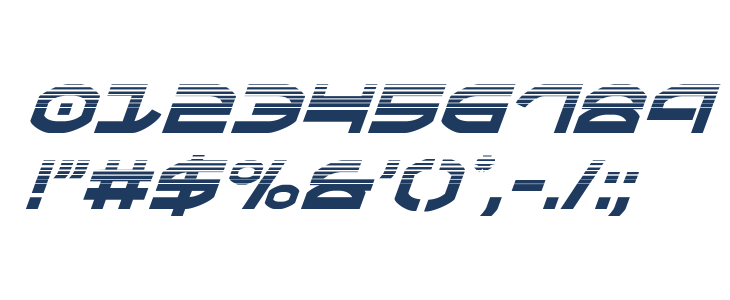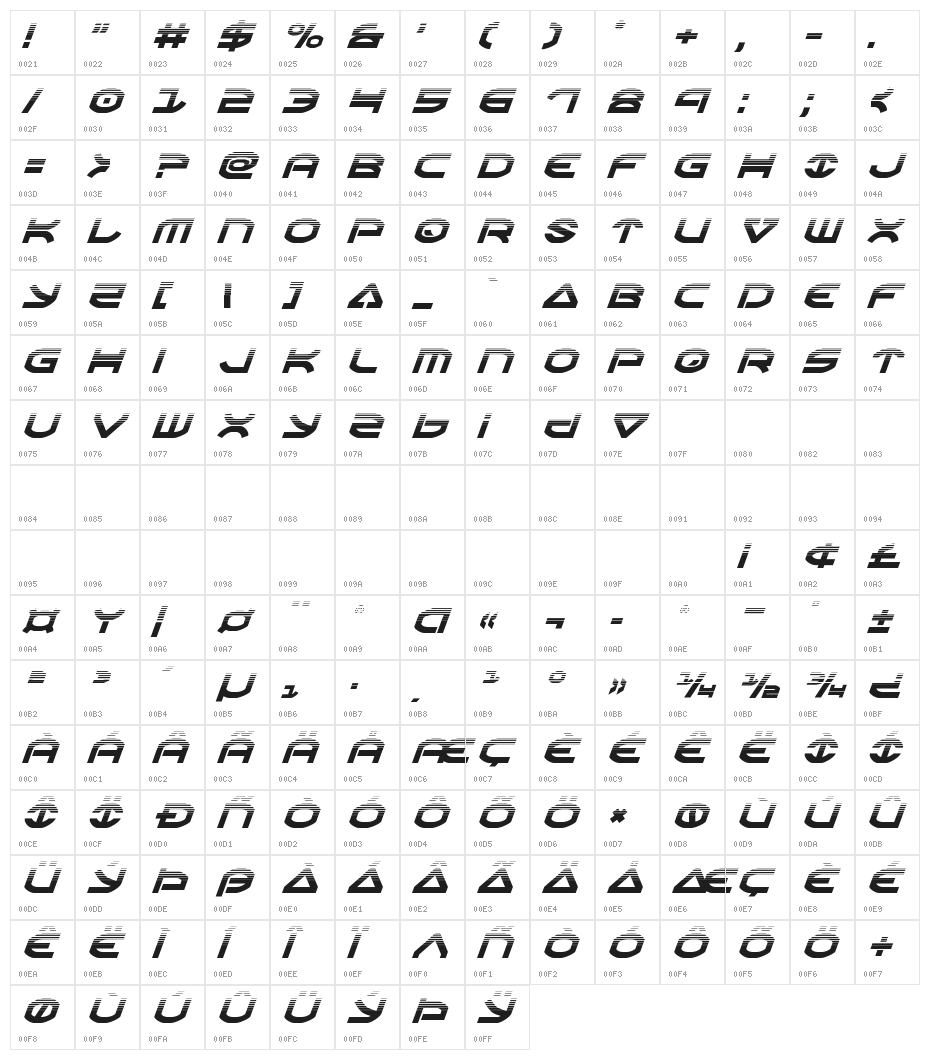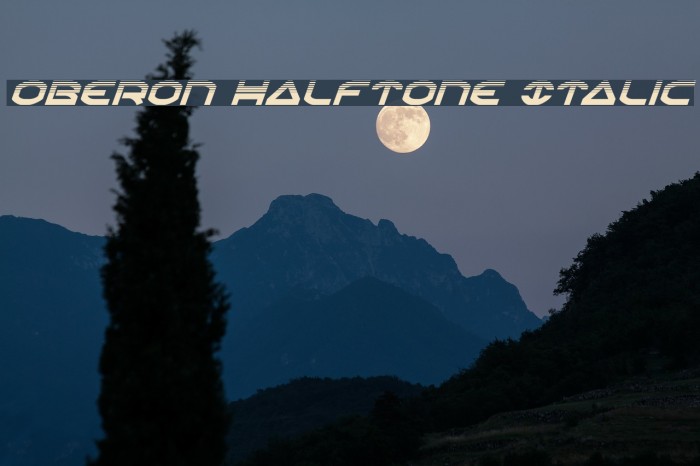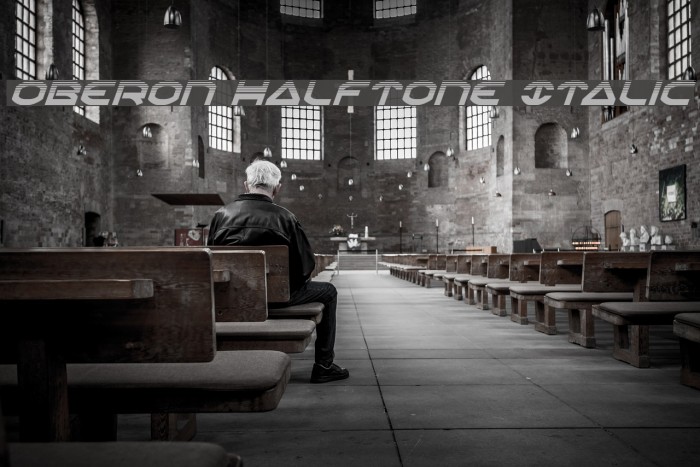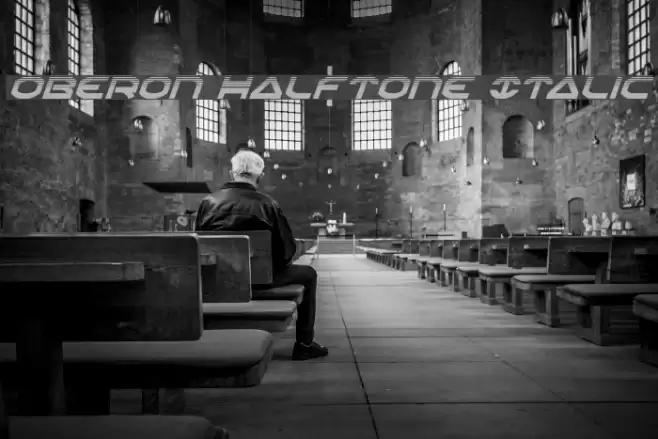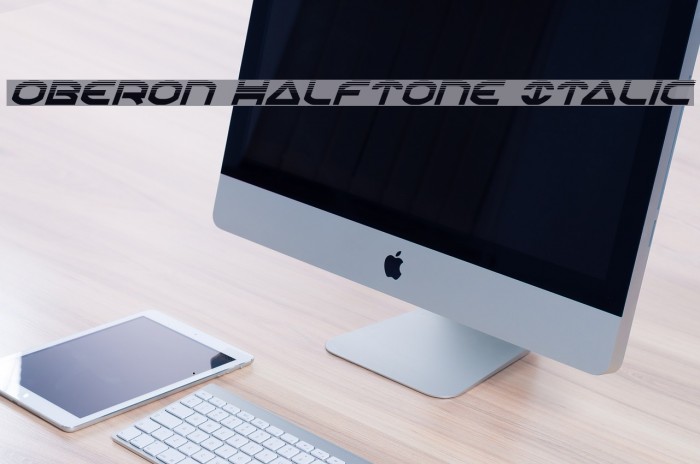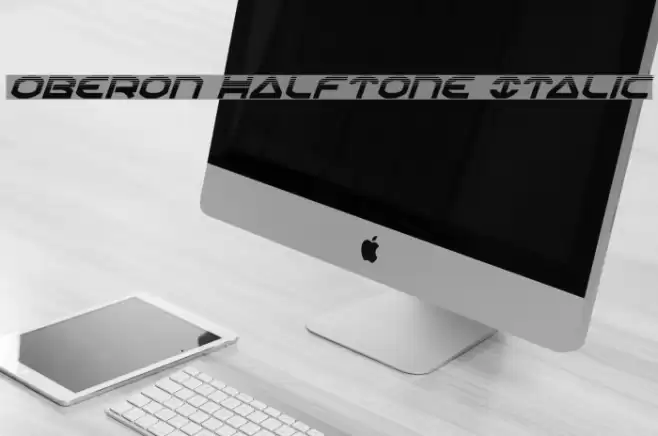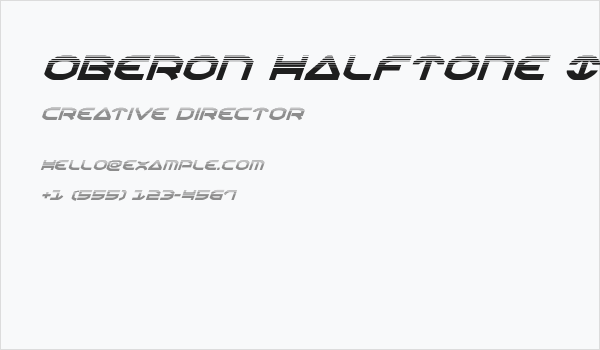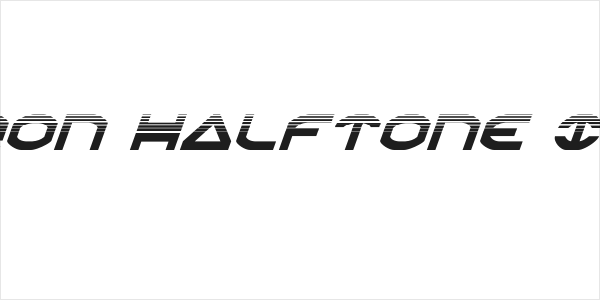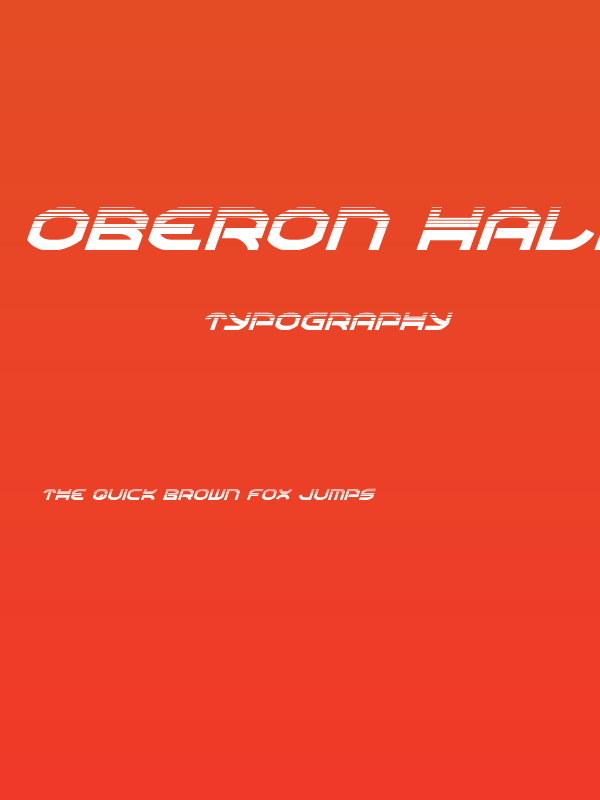
Oberon Halftone Italic Font
Oberon Halftone Italic Description
This font features a dynamic and futuristic design with a halftone effect that gives it a sense of movement and energy. The characters are italicized, adding to the forward-leaning, progressive feel. Each letter is composed of horizontal lines that create a unique visual texture, making it stand out in any design. The font maintains a consistent width across characters, ensuring readability while still offering a distinctive style. Its bold appearance is perfect for making a statement, and the spacing between characters is tight, enhancing its compact and cohesive look. The high contrast in stroke thickness further emphasizes its modern and edgy aesthetic.
| Proposed Projects | Ideal for futuristic branding, tech-related projects, sports team logos, and eye-catching headlines. |